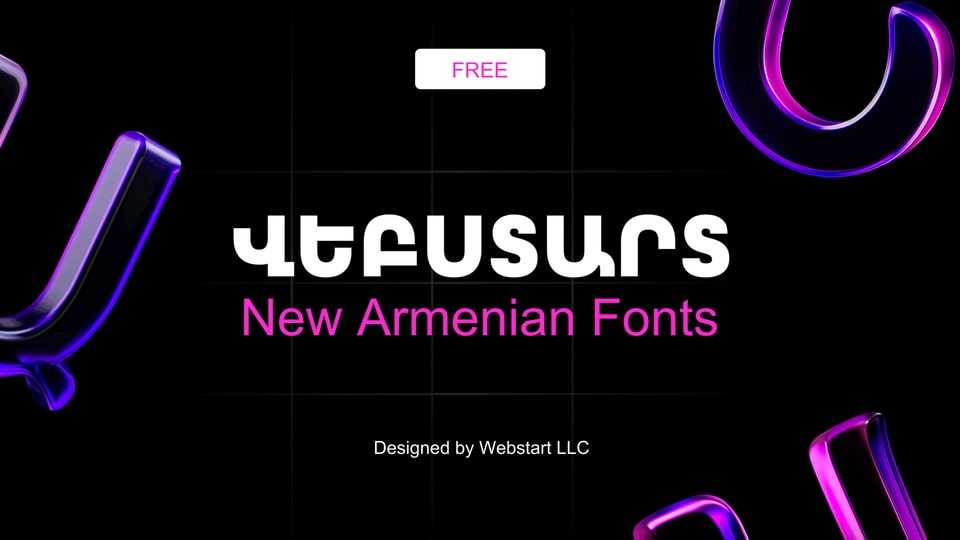
Download Webstart font, a modern, clean and highly legible Armenian typeface designed by Webstart LLC. The font blends traditional Armenian letterforms with contemporary geometry.